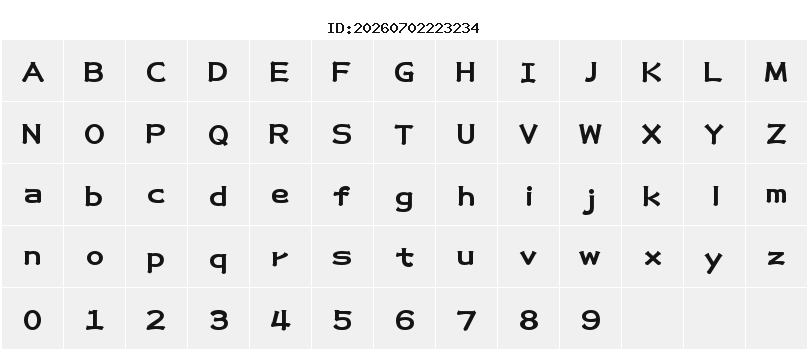
About 285-上首万福体.ttf
285-上首万福体.ttf is a modern, elegant sans-serif font designed for ultimate readability and visual harmony. Perfect for branding, headlines, web design, and print materials.